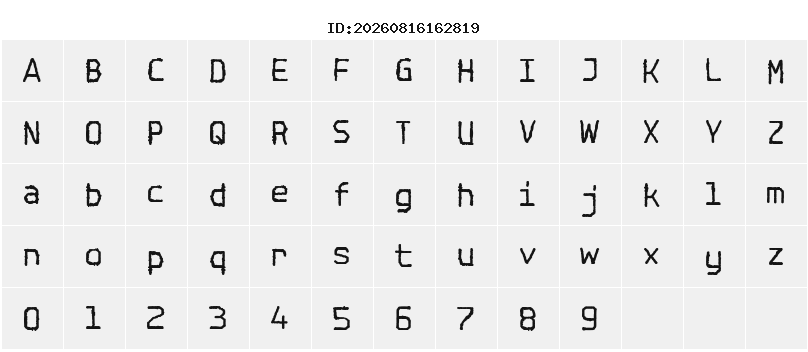
Spotlight Typewriter NC Preview
About Spotlight Typewriter NC.ttf
Spotlight Typewriter NC.ttf is a modern, elegant sans-serif font designed for ultimate readability and visual harmony. Perfect for branding, headlines, web design, and print materials.